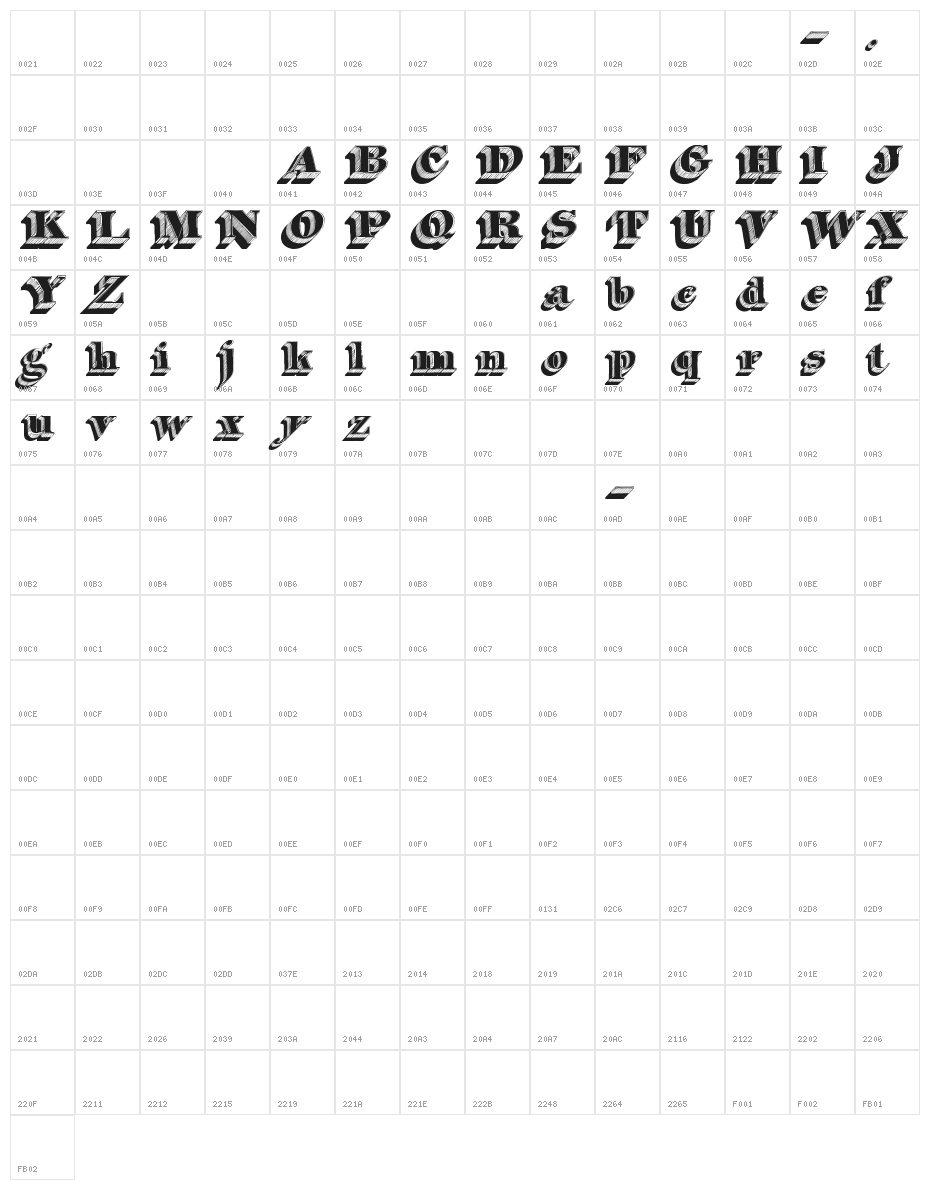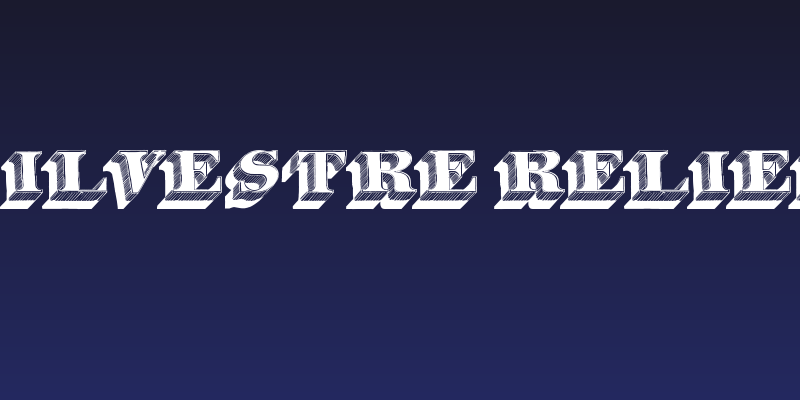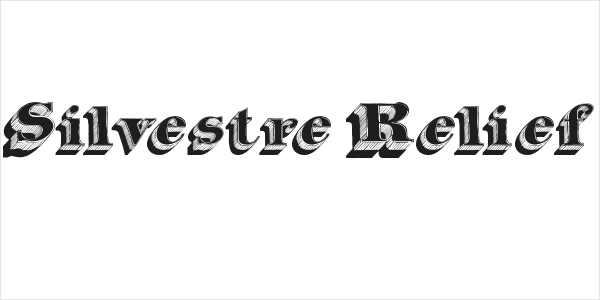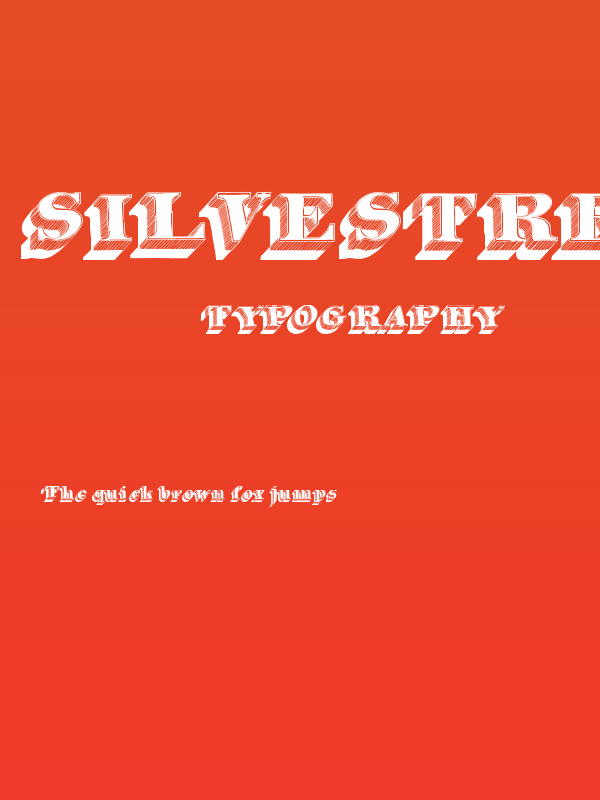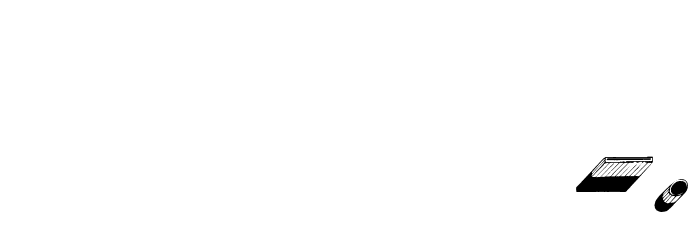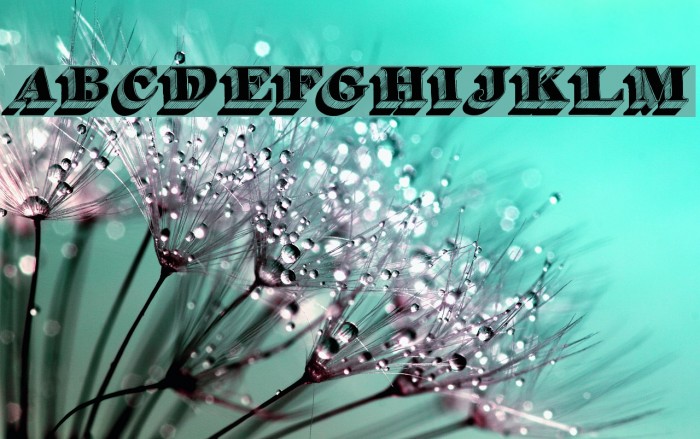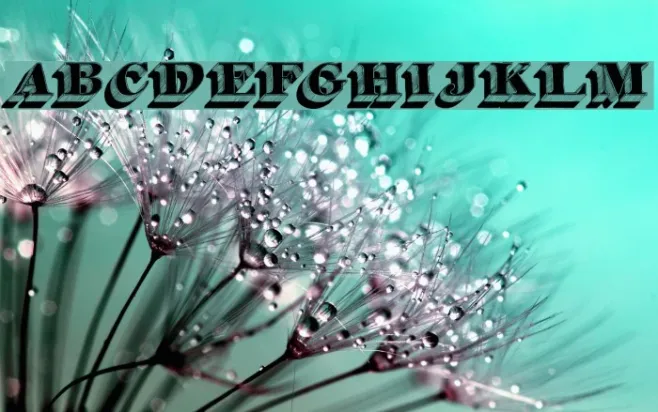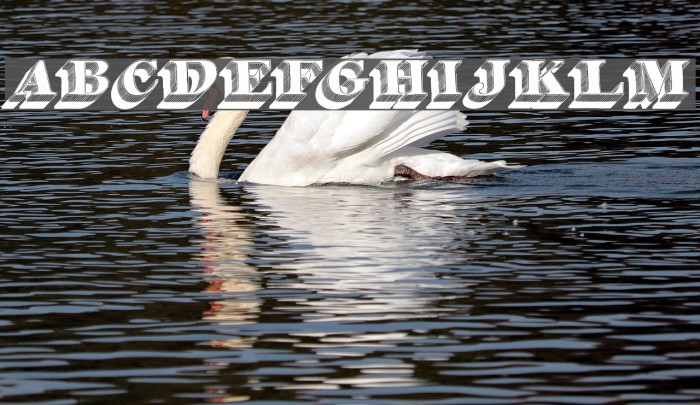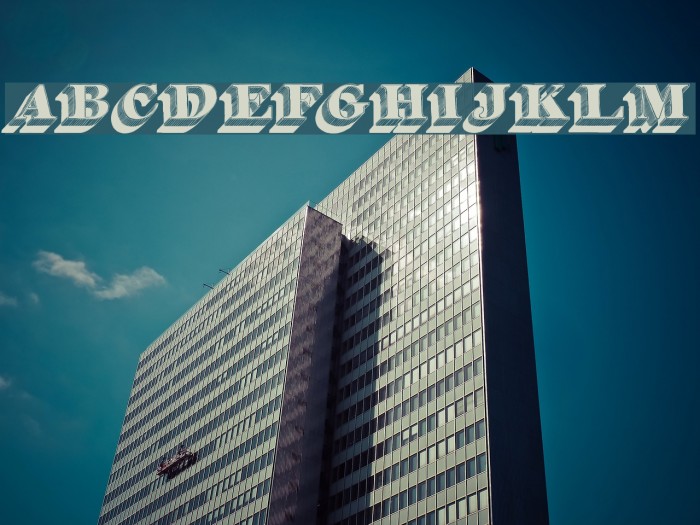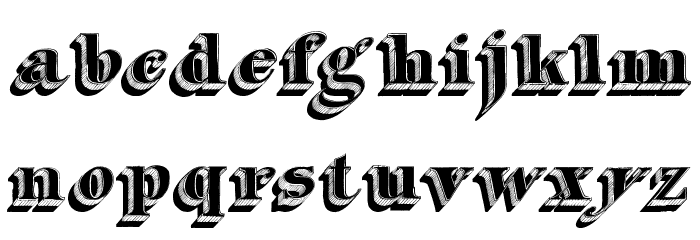
Silvestre Relief Font
Silvestre Relief Description
This font features a bold, three-dimensional design with a distinct shadow effect that gives each character a sense of depth and movement. The letters are crafted with a serif style, adding a touch of elegance and sophistication. The intricate detailing within each character enhances its decorative appeal, making it stand out in any design. The uppercase and lowercase letters maintain a consistent style, while the numerals and special characters complement the overall aesthetic. This font is ideal for projects that require a striking and memorable visual impact.
SILVESTRE-RELIEF UPPERCASE
SILVESTRE-RELIEF LOWERCASE
SILVESTRE-RELIEF OTHER CHARS
| Proposed Projects | Ideal for poster designs, book covers, branding, and any project requiring a bold statement. |